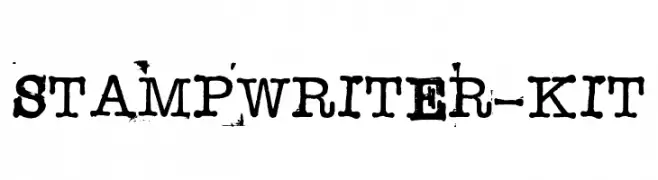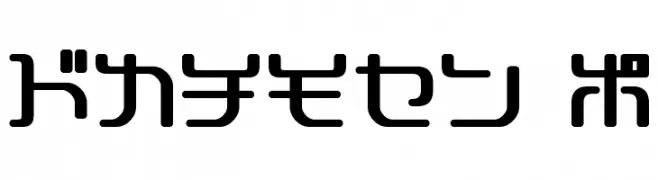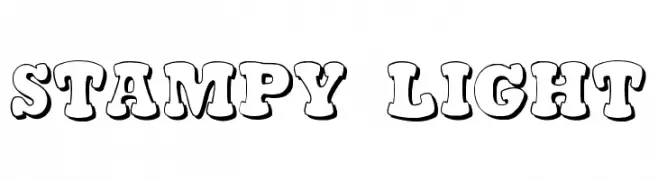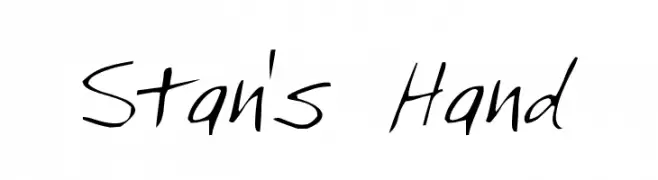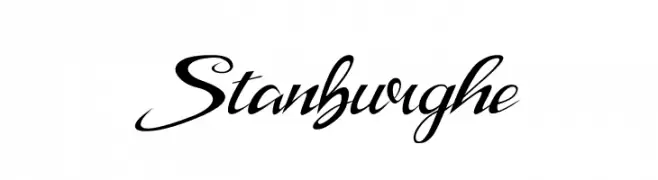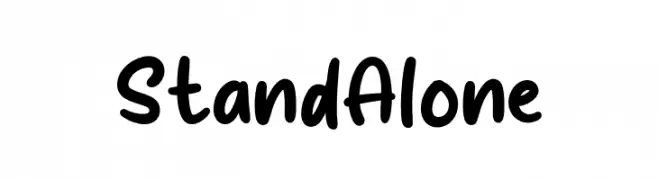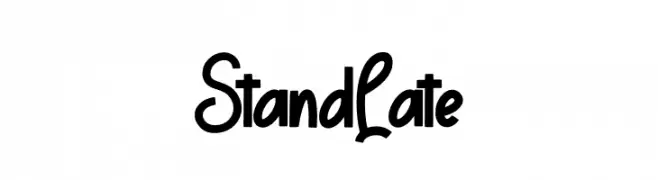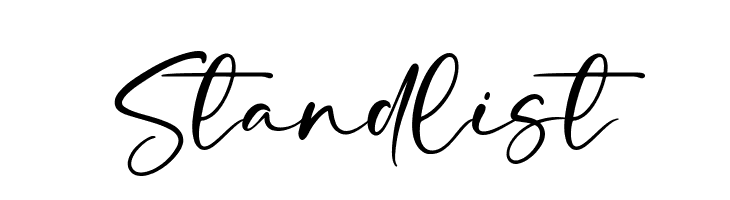
A distressed, vintage typewriter-style serif font with a textured, stamp-like appearance.
A futuristic, geometric font with rounded edges and consistent line thickness.
A playful, outlined font with a bubble-like, cartoonish style.
A playful, rounded font with smooth curves and a friendly appearance.
A refined script font with elegant, flowing characters and calligraphic style.
A bold, playful handwritten font with smooth, rounded edges.
A modern, elegant script font with fluid, interconnected strokes.
A playful, bold, and handwritten-style font with a casual and friendly appearance.